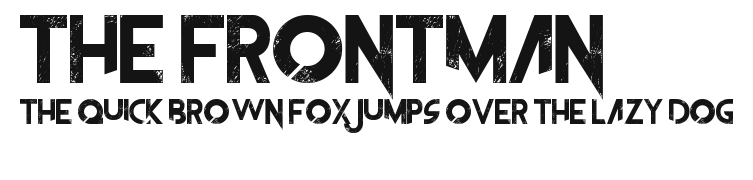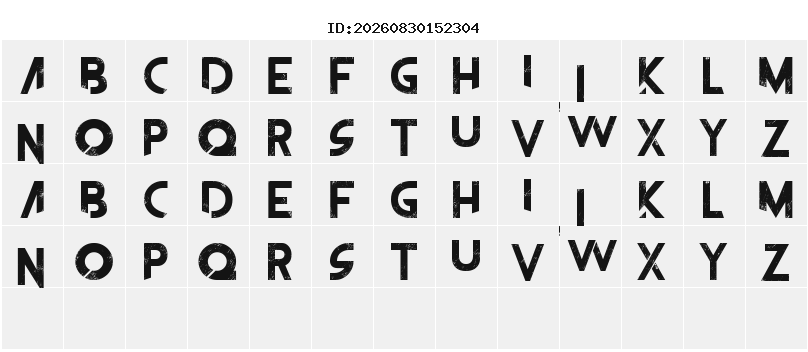
The Frontman Preview
• Font Name: The Frontman
• Designer: Luis Jaramillo
• Manufacturer: LJ-Design Studios
About The Frontman.ttf
The Frontman.ttf is a modern, elegant sans-serif font designed for ultimate readability and visual harmony. Perfect for branding, headlines, web design, and print materials.